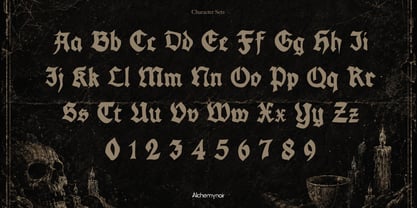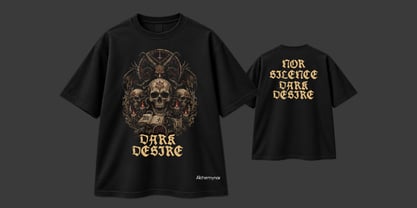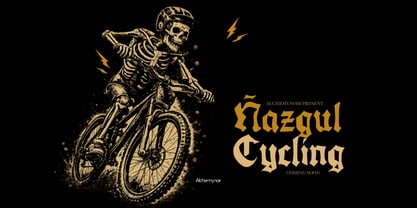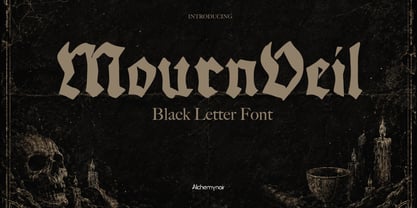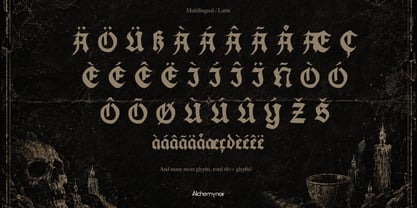
MournVeil
The MournVeil Font Family was designed by alwi azzali and published by Alchemynoir. MournVeil contains 1 styles. More about this family
MournVeil connects the power of medieval typography with a unique Gothic twist, channeling a mysteriously macabre aesthetic influenced by occult-themed artistry and the gritty allure of underground culture. Its arresting, strong letterforms are meticulously sculpted, infusing your designs with a compellingly dark and rebellious persona. The stark drama of MournVeil’s blackletter character flourishes in contexts such as alternative apparel designs, band merch, cryptic logos, moody posters, tattoo art, horror-themed visuals, and edgy social media graphics. In the hands of a creative, MournVeil transforms into a commanding capsule of 180+ glyphs for designing eye-catching headers, unforgettable logos, and punchy display typography.
Whether your project swims in the dark waters of streetwear, reverberates with the raw intensity of metal, or basks in the noir atmosphere of vintage designs, MournVeil is your ticket to creating something that will resonate indelibly in the memory of your audience. Its features: an expansive set of robust glyphs, a bold and Gothic-style blackletter, high-impact and evocative letterforms, and a versatility that makes it suitable for all personal and commercial design endeavours.
With MournVeil, plunge into the dark depths of creativity and emerge with something uniquely unforgettable.